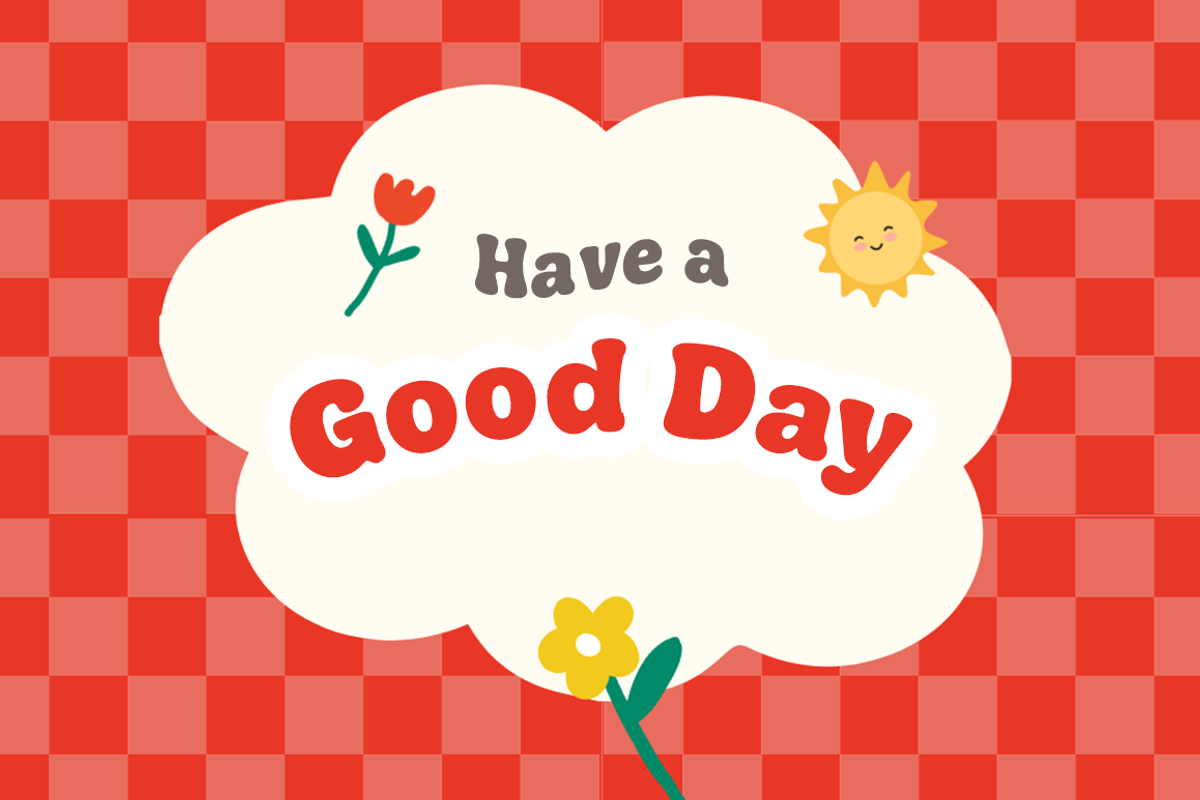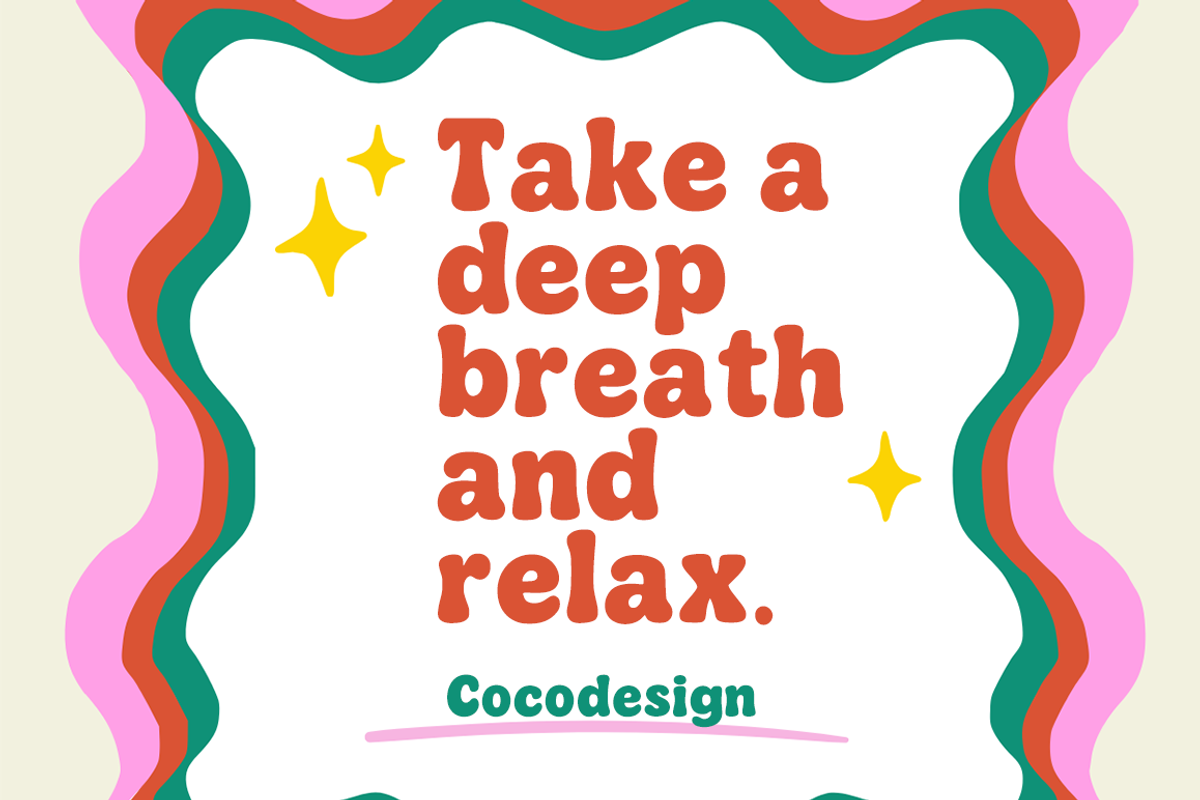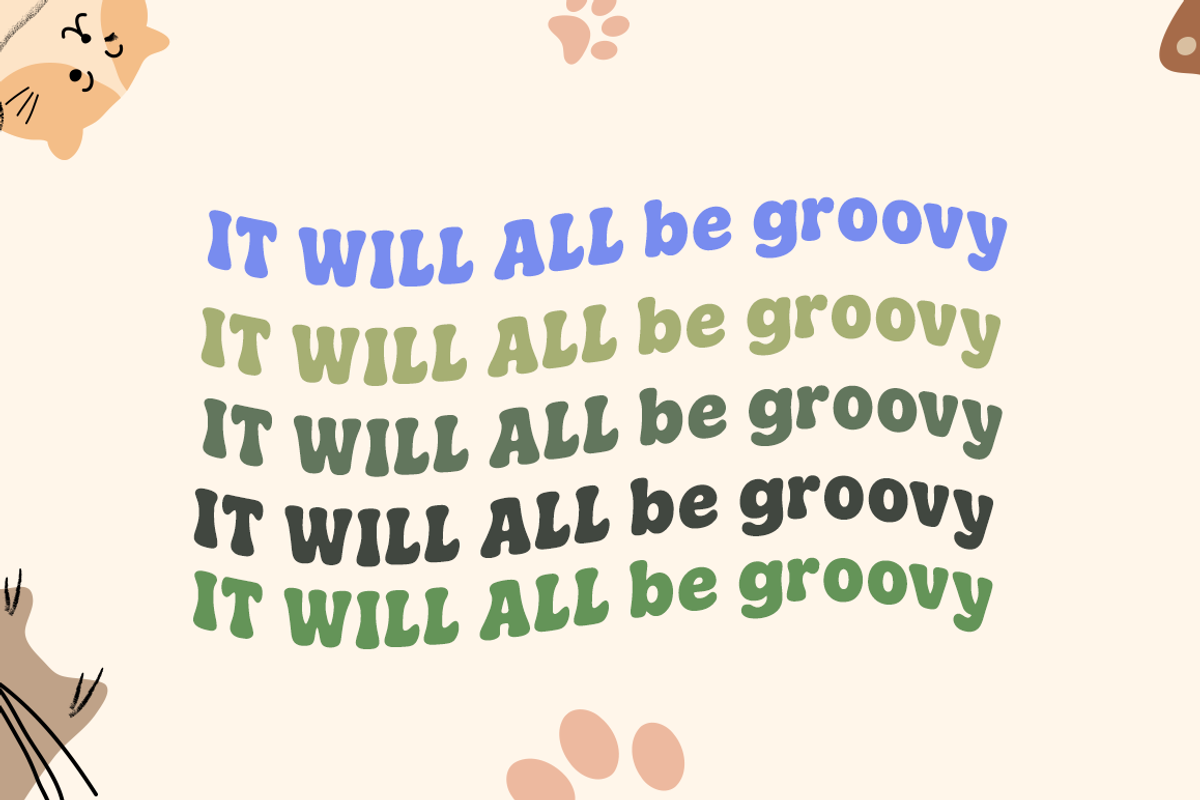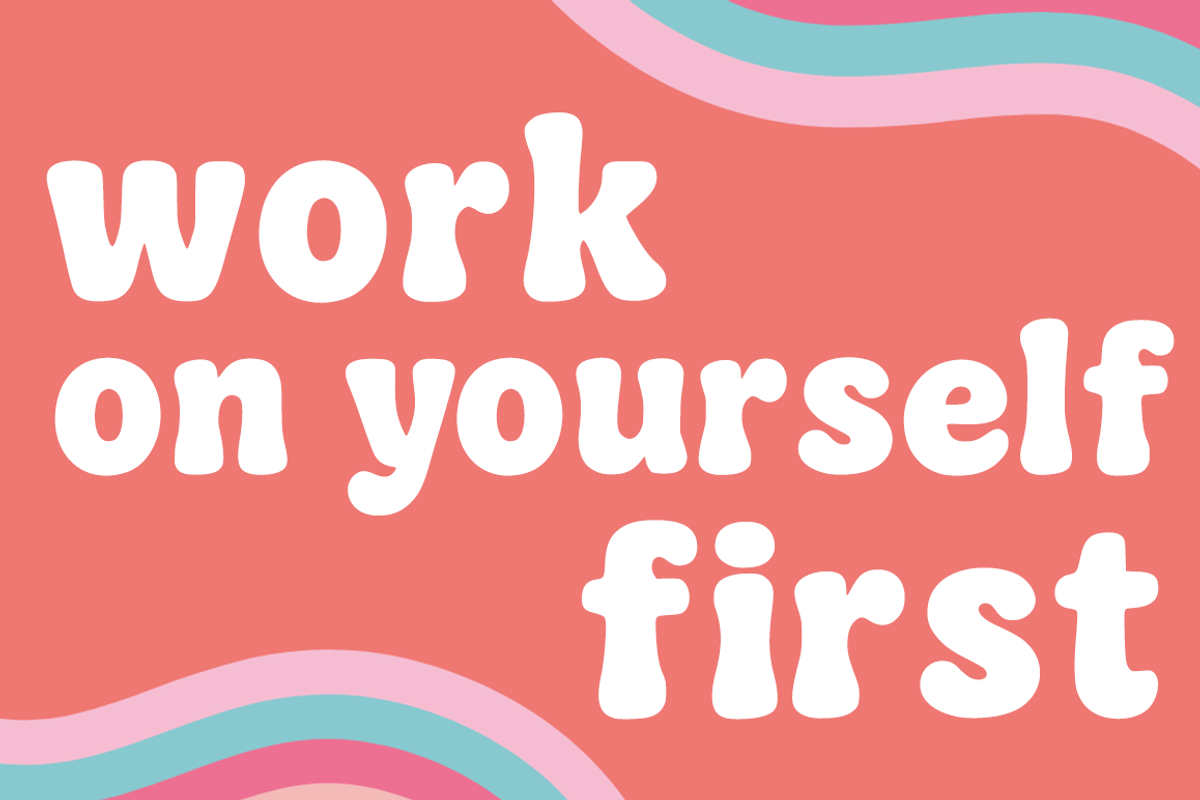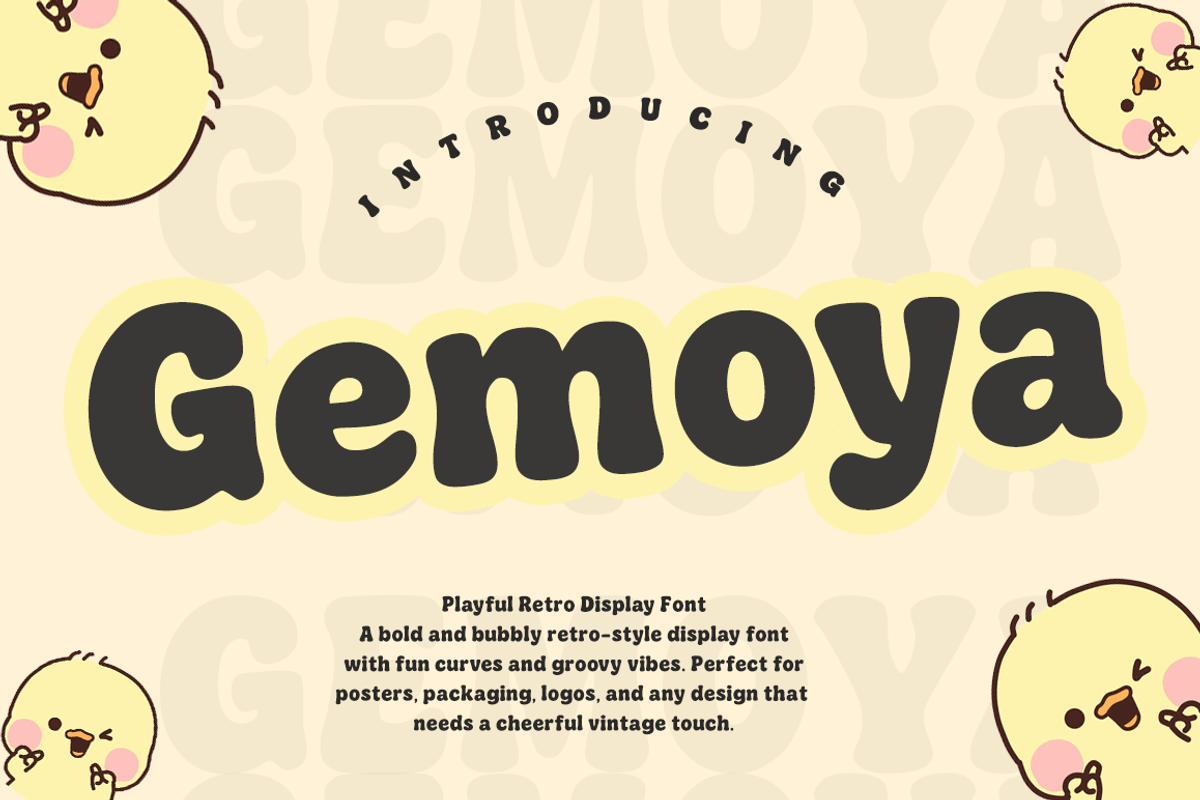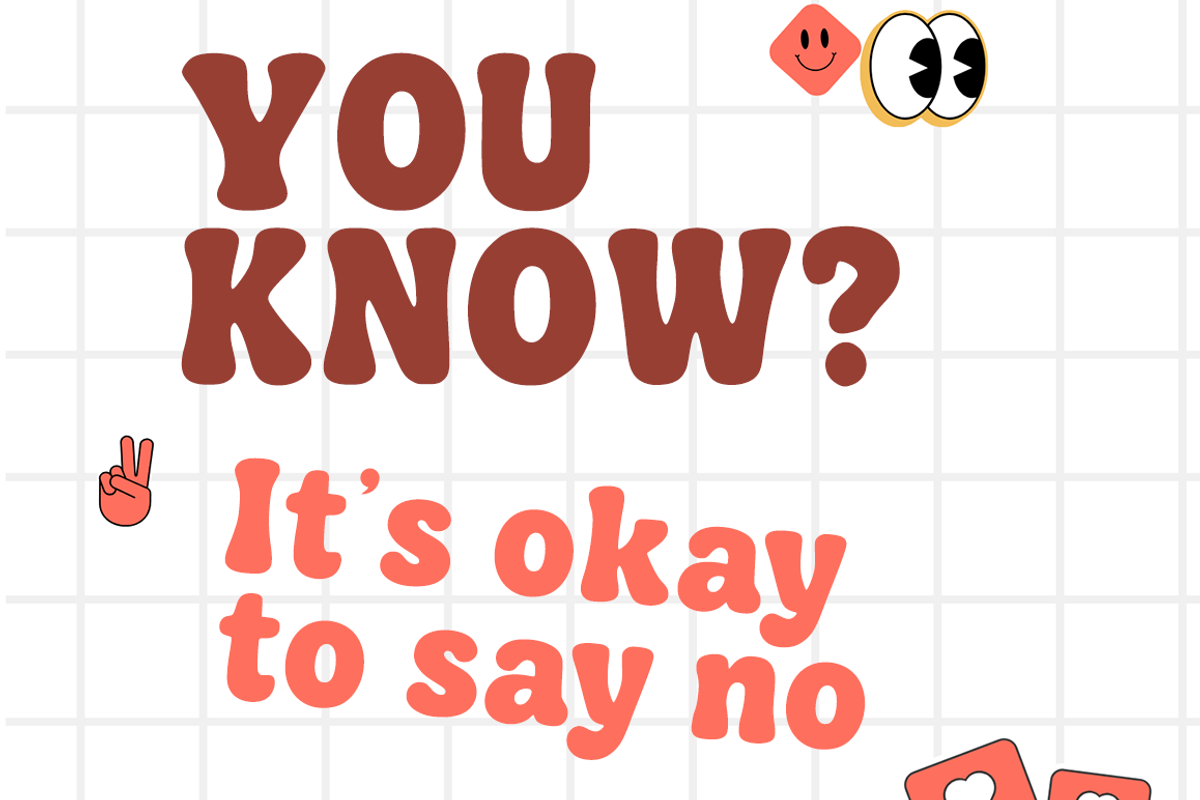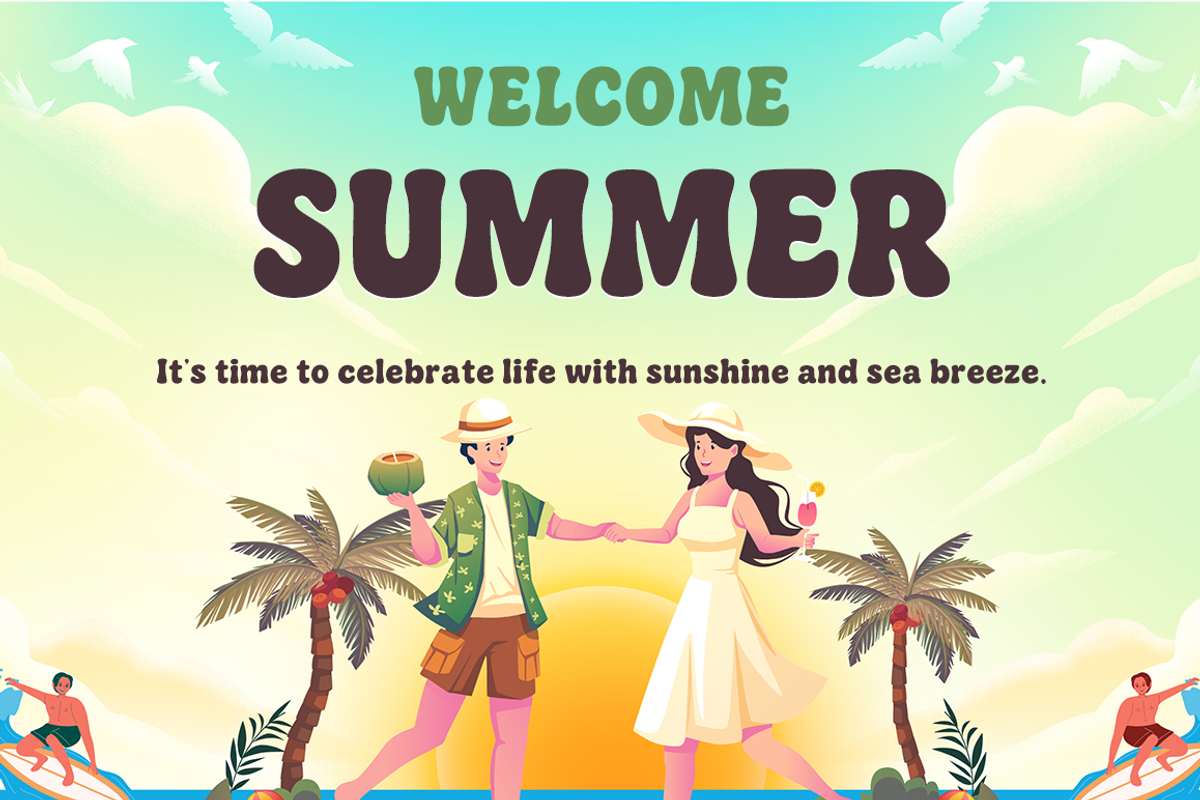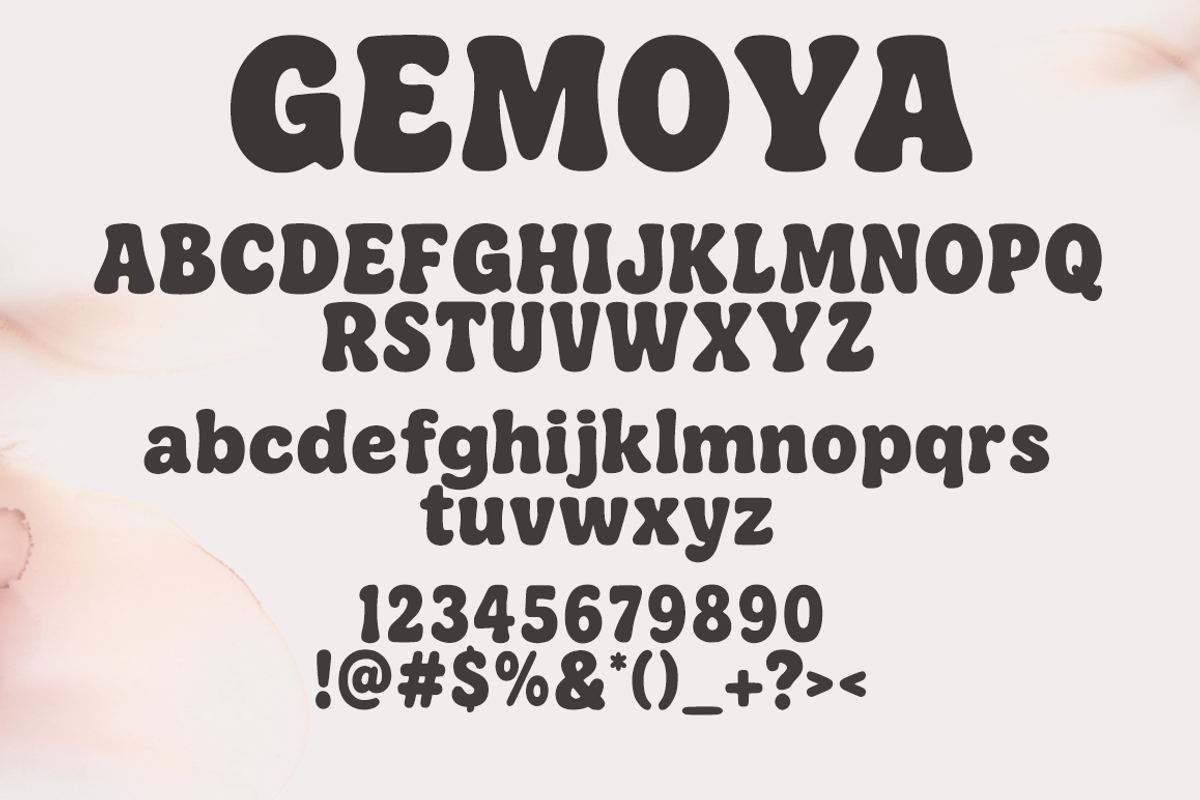
Gemoya font
Gemoya – Playful Retro Display Font Gemoya is a bold and bubbly retro-style display font designed with fun curves and groovy vibes. Its rounded shapes and cheerful character make it perfect for a wide range of creative projects, including posters, packaging, logos, labels, invitations, and social media content.
This font brings a warm vintage feel with a modern twist, making it an ideal choice for designs that need a friendly, fun, and memorable touch.
✨ Key Features:
Bold and bubbly retro style Perfect for branding, posters, packaging, logos, and social media Playful and cheerful personality Adds a cheerful vintage touch to any design